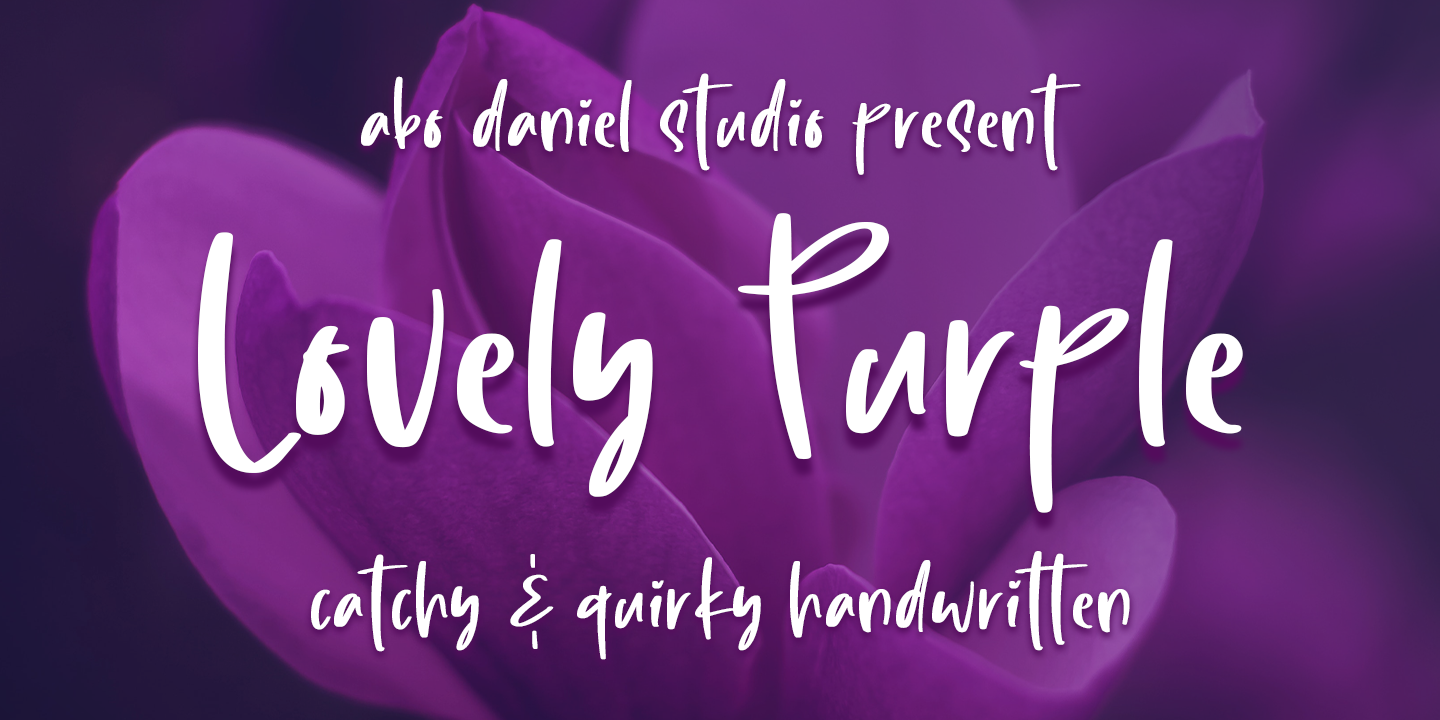
The Lovely Purple Font excels in various design applications including lavender boutique branding, purple-themed wedding invitations, romantic floral shop signage, feminine beauty product packaging, dreamy spa communications, enchanting children's party materials, mystical wellness center identities, violet flower farm marketing, magical fairy tale book covers, and charming romantic projects that demand purple elegance and lovely sophistication.
What makes the Lovely Purple Font exciting is its enchanting embodiment of purple beauty and romantic charm through letterforms that capture the essence of lavender fields and the dreamy elegance of violet hues. This typeface demonstrates exceptional grace through carefully crafted characters that suggest the soft petals of purple flowers, the mystical allure of amethyst gemstones, and the romantic sophistication that makes purple such a beloved color for expressing love and beauty. The font's lovely personality makes it perfect for beauty brands and romantic businesses seeking to communicate feminine elegance, mystical charm, and the kind of dreamy beauty that creates memorable purple experiences through typography that literally glows with violet enchantment.
The Lovely Purple Font family typically includes graceful weight variations that enhance the purple aesthetic, featuring flowing italic styles with floral flourishes and romantic decorative elements. These family options often include lavender-inspired alternates, purple symbols, and enchanting ornaments that provide designers with comprehensive tools for creating authentically lovely typography that celebrates purple beauty while maintaining contemporary design appeal and romantic sophistication.
Beauty professionals and romantic lifestyle brands consistently select Lovely Purple Font Free Download for projects requiring typography that communicates purple elegance and lovely charm. This typeface delivers exceptional performance in beauty marketing, romantic branding, and feminine communications where establishing enchanting atmosphere and creating dreamy appeal is essential for emotional connection. The font's purple character makes it particularly effective for floral and wedding applications. Download Lovely Purple Font Free Download today to access this enchanting typeface that transforms romantic communications with its purple beauty and lovely sophistication, creating compelling dreamy experiences that honor the magnificent allure of purple hues while celebrating the romantic elegance that makes violet colors so deeply beloved and genuinely magical.